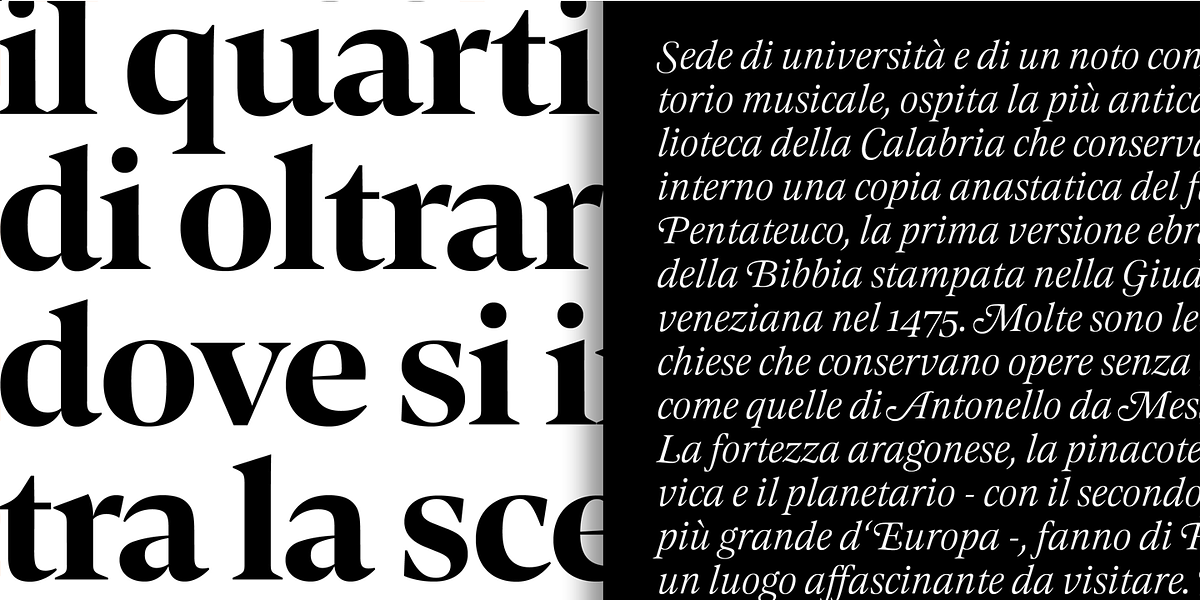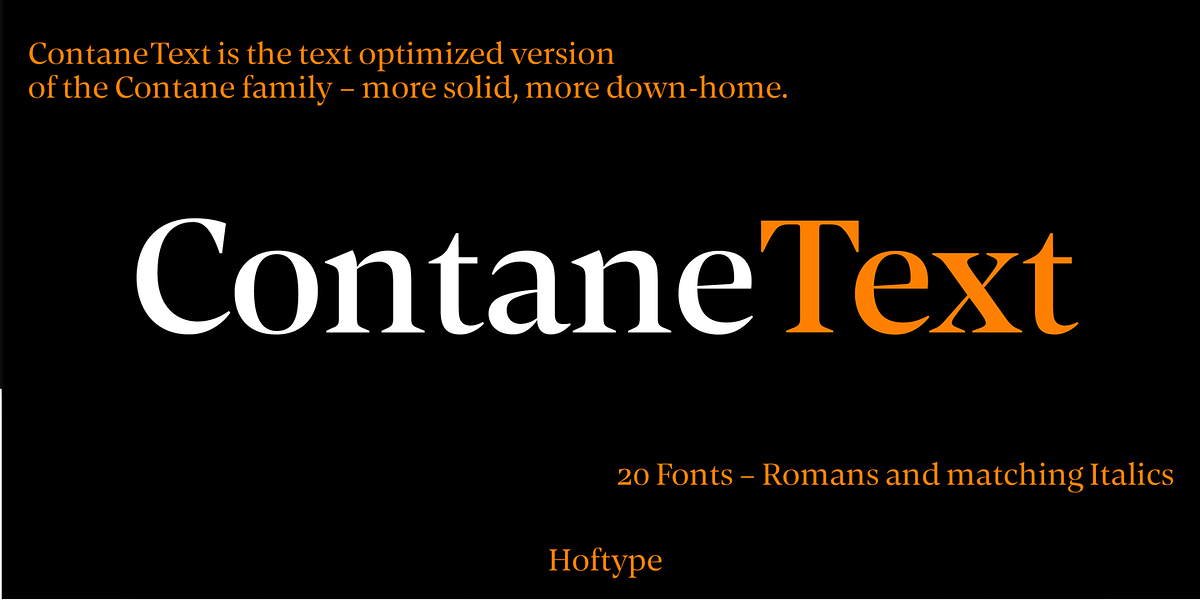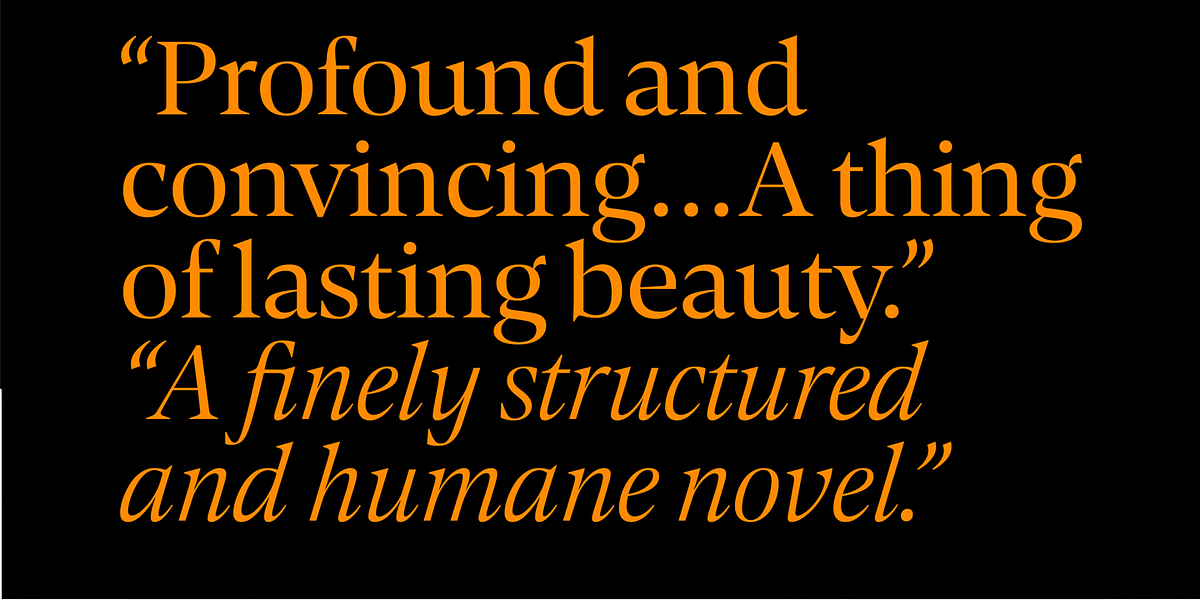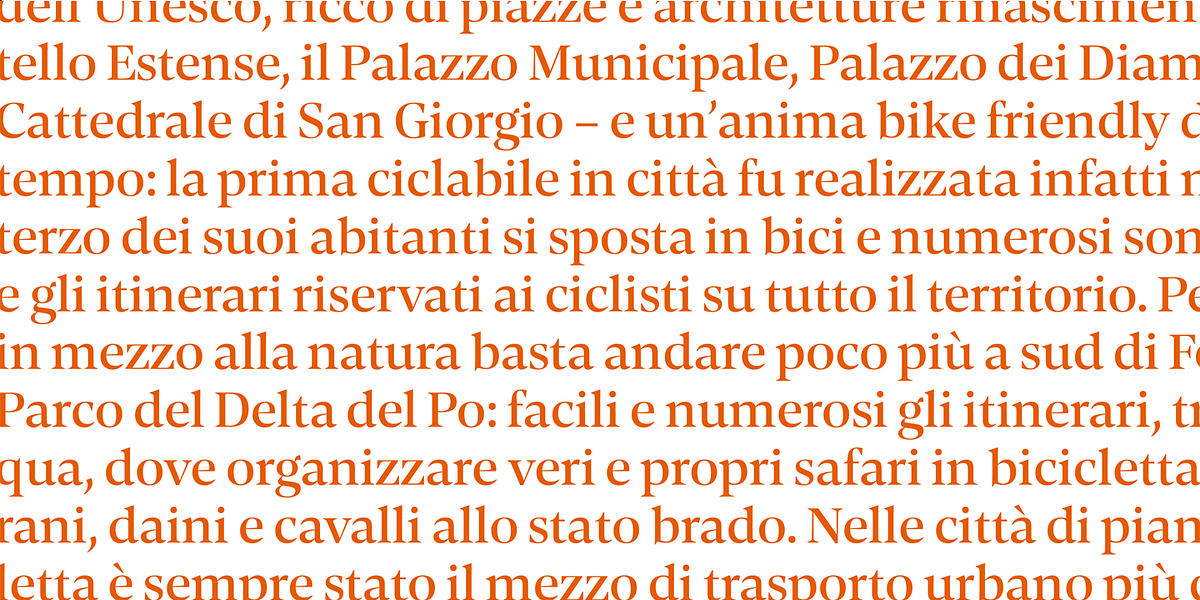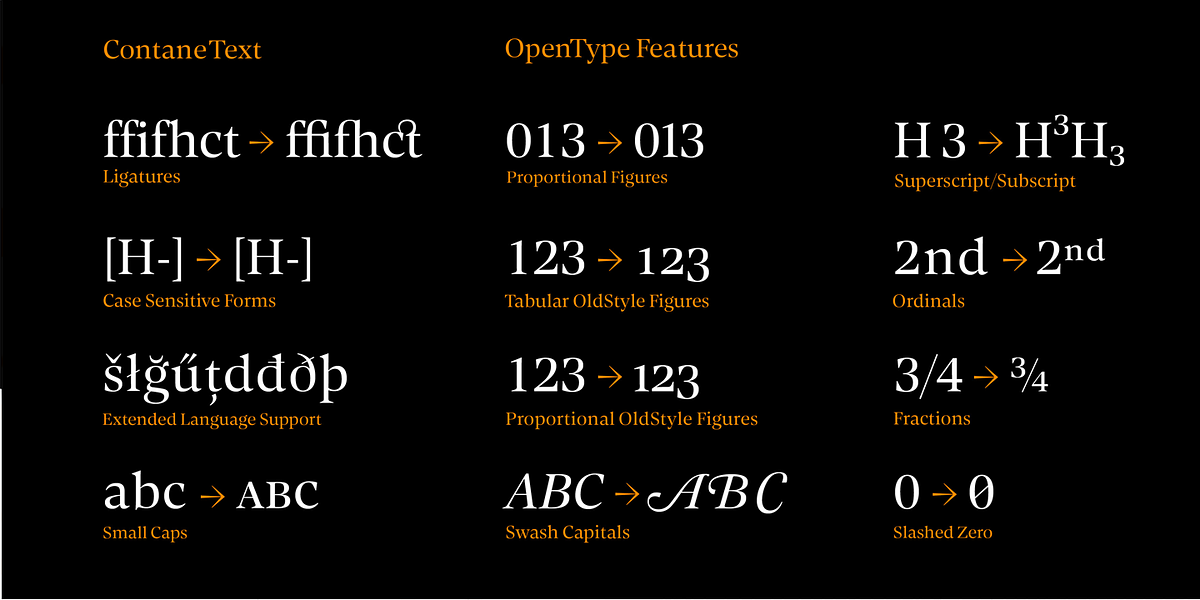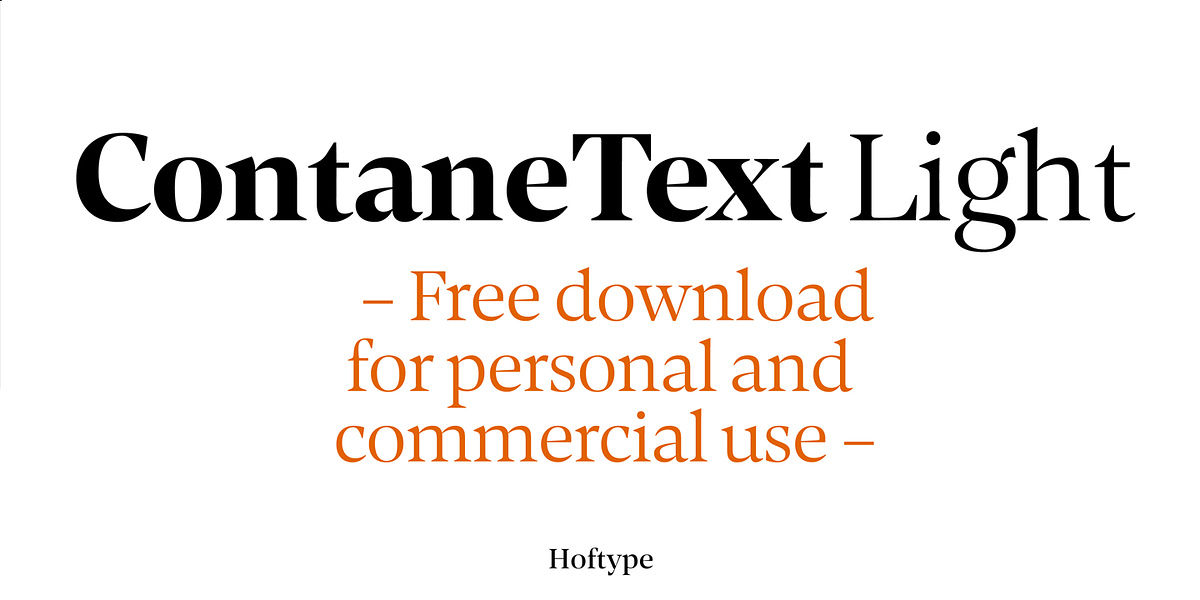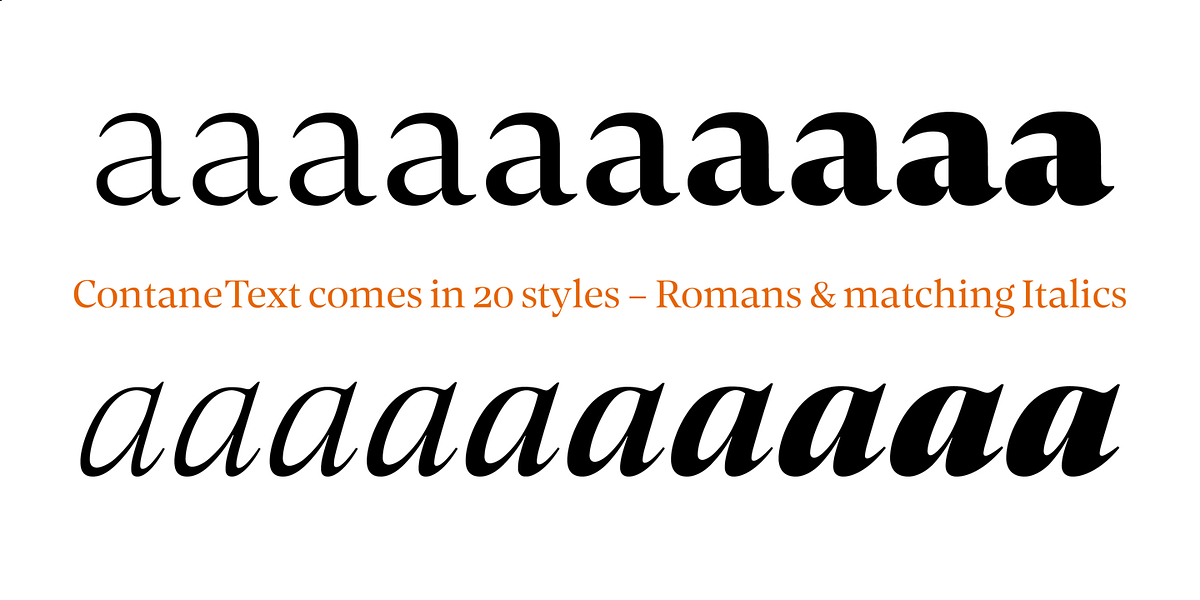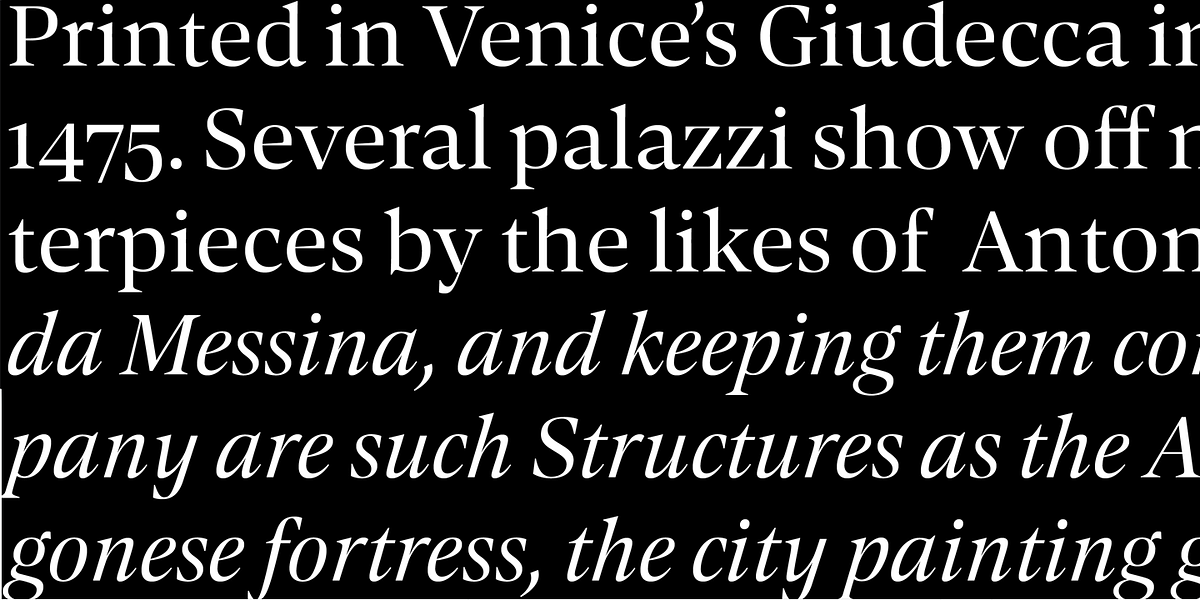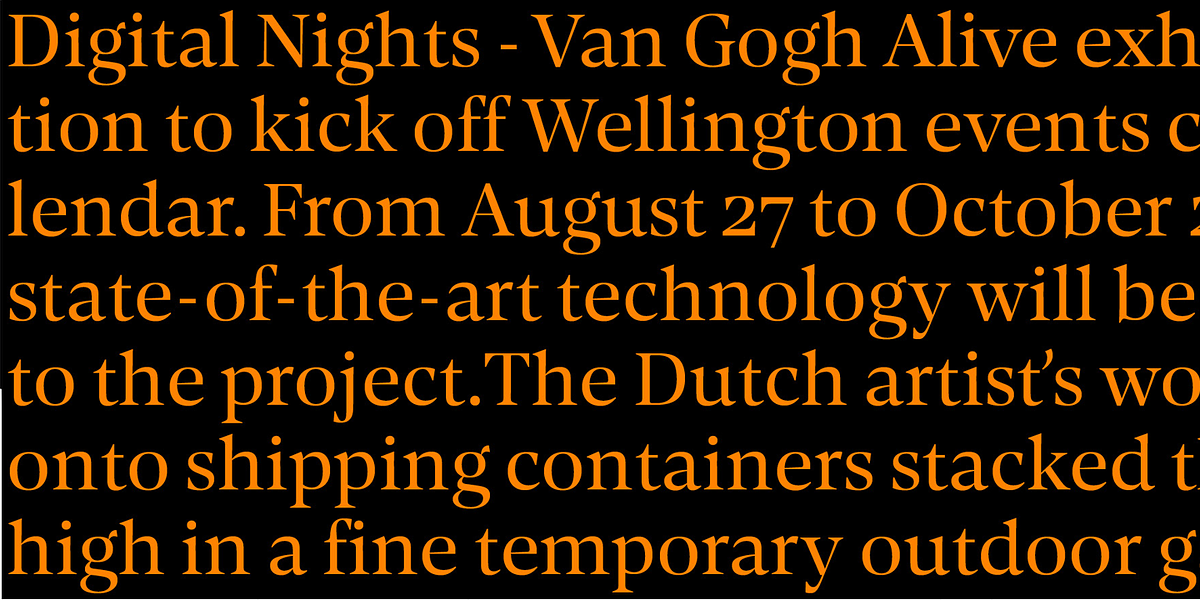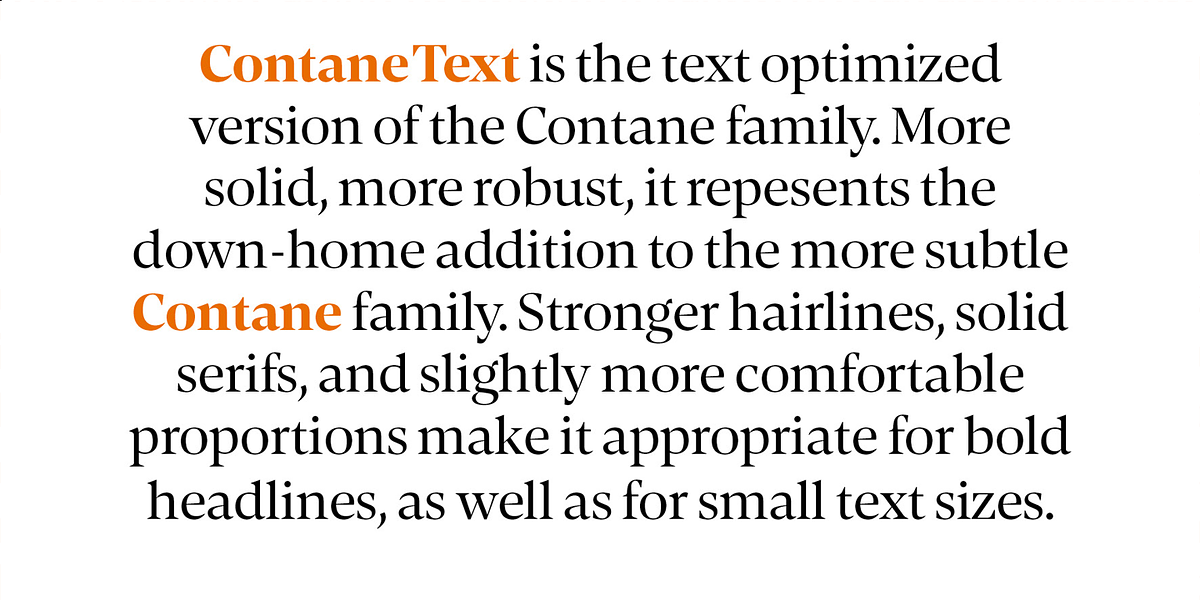
Contane Text
Contane Text is a serif font designed for versatility. It boasts strong serifs and slightly more comfortable proportions compared to its counterpart, Contane. The 20 styles offer a wide range of weights suitable for both bold headlines and legible body text. The font includes a comprehensive set of features such as small caps, ligatures, various numeral styles, currency symbols, arrows, and alternate characters.